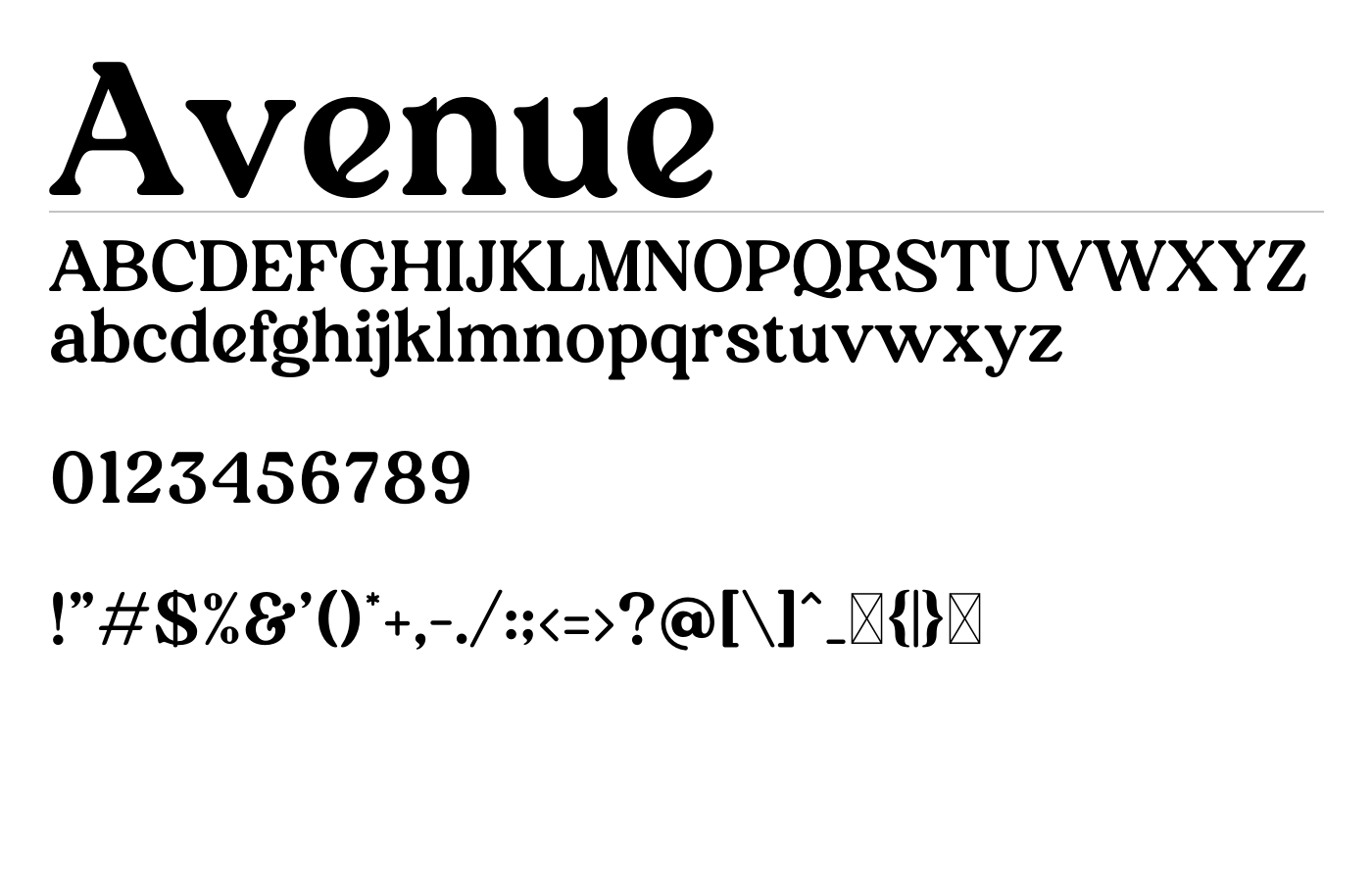
Avenue is a distinctive serif font that combines classic elegance with a touch of modern flair. Its moderate contrast and bracketed serifs give it a refined, sturdy appearance, making it ideal for editorial use, branding, and headlines where a sophisticated, trustworthy voice is needed. This font’s unique letterforms and clear readability ensure it performs well both in print and digital contexts.
Avenue Font